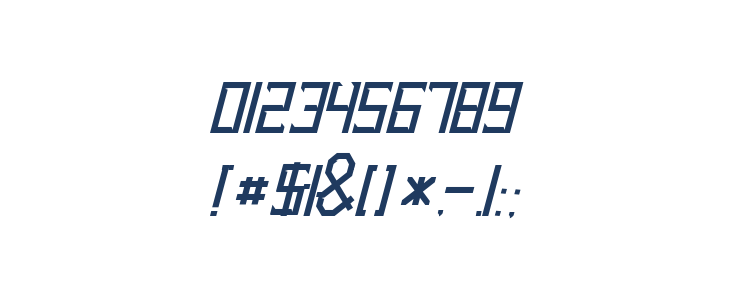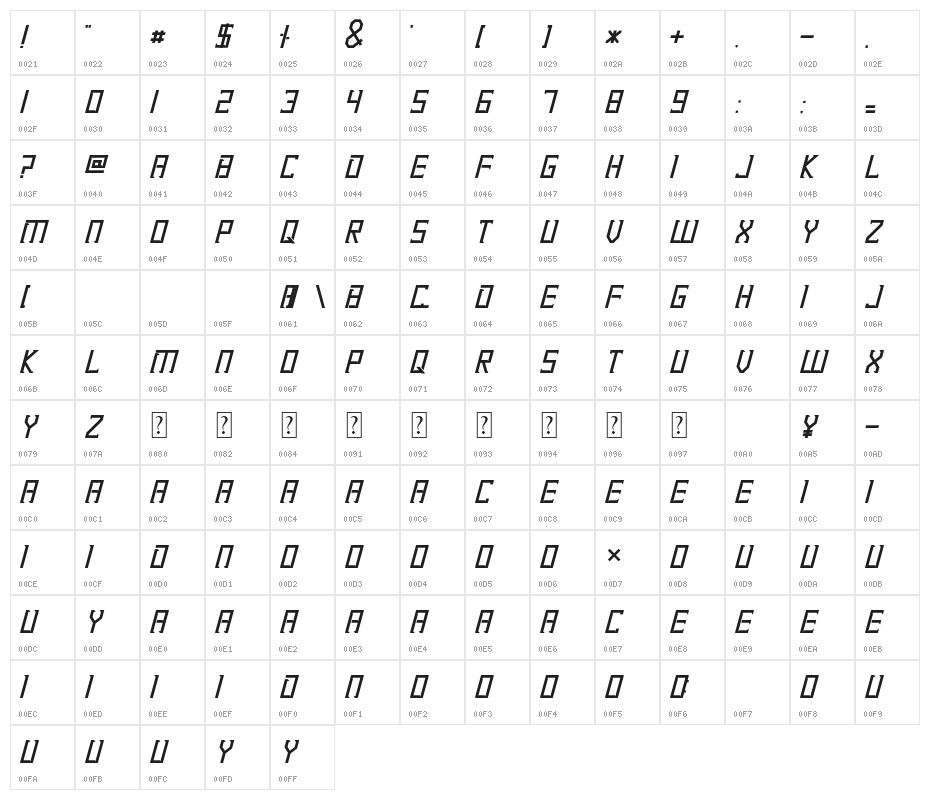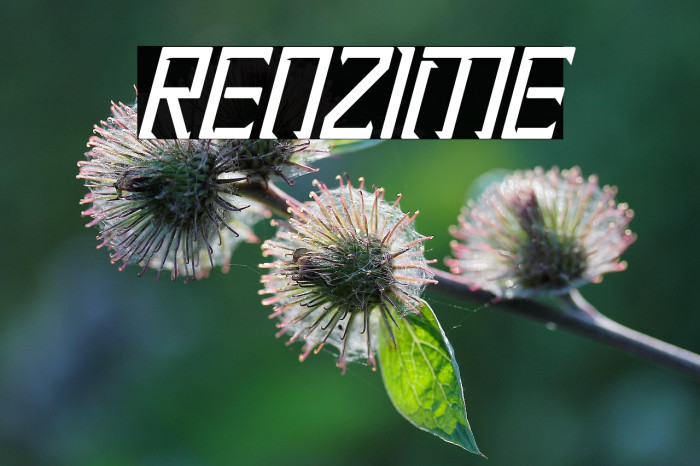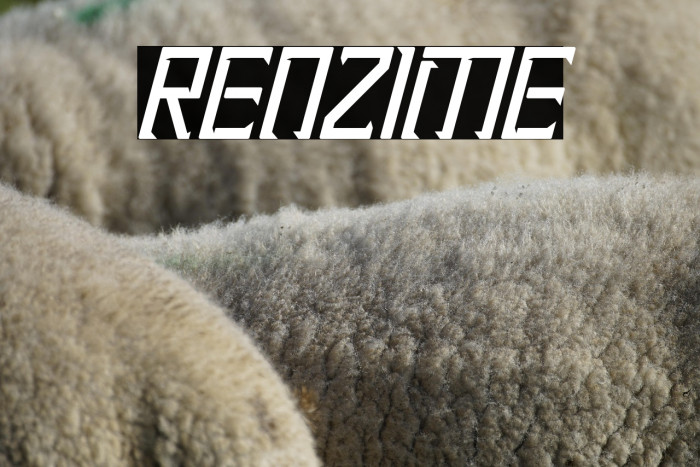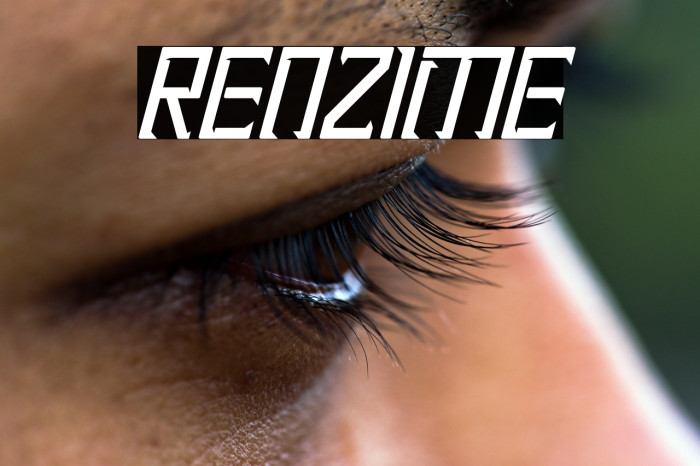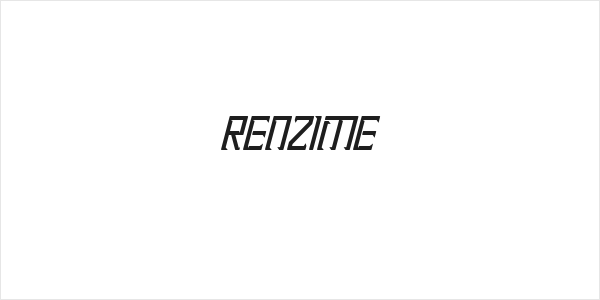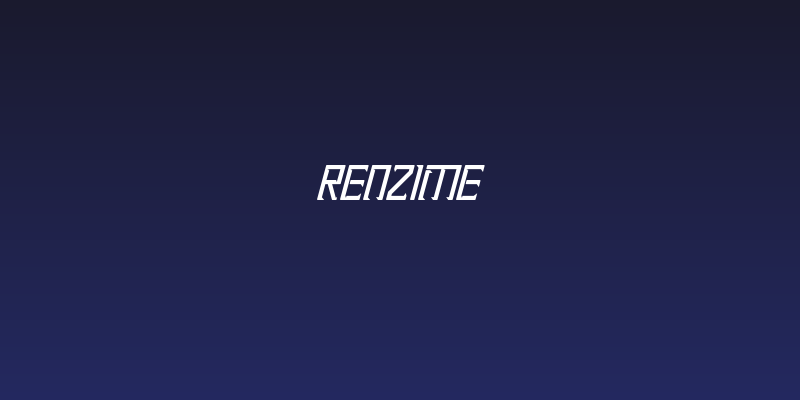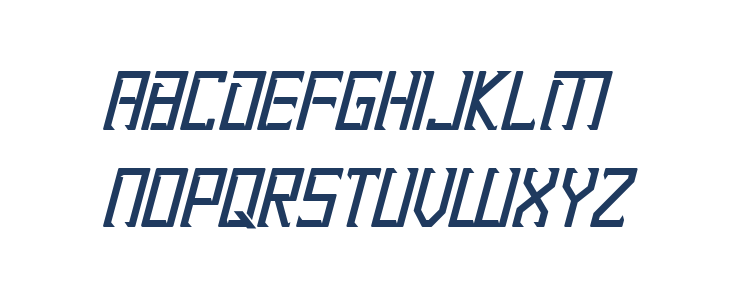
Renzime Font
| Anwendungsfall | Logos, Headlines, Posters |
| Vorgeschlagene Projekte | Ideal for technology branding, sports team logos, video game titles, and sci-fi themed posters. |